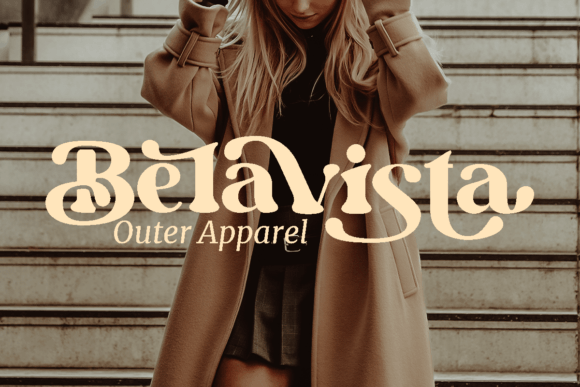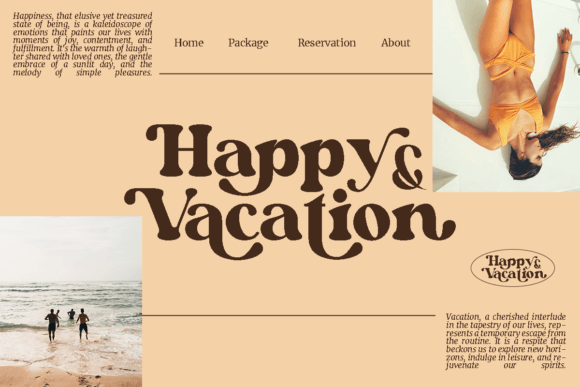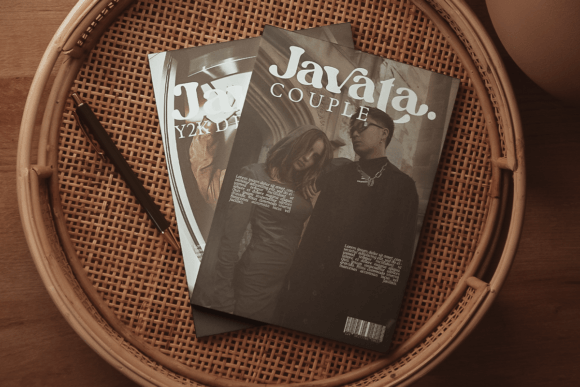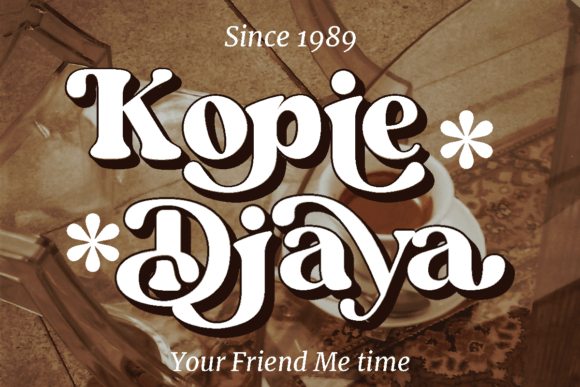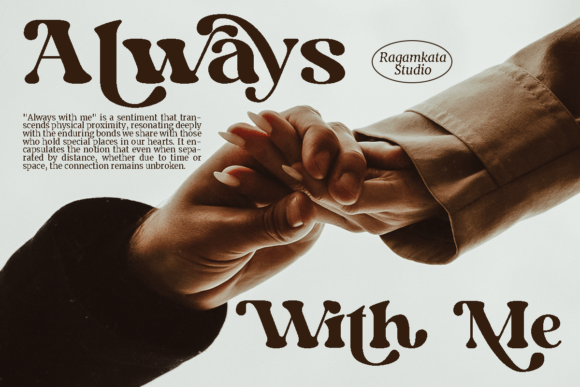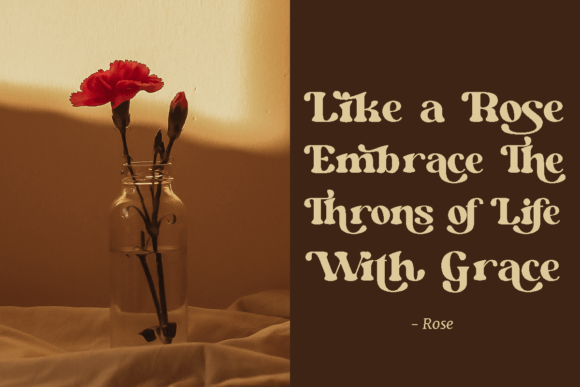
Introducing Dianda Font: A Stylish Retro-Bold Typeface for Creative Projects
Are you a designer or crafter looking for a unique and versatile font to elevate your creative projects? Look no further than Dianda Font, a stylish and bold typeface that seamlessly blends retro charm with modern flair. In this article, we’ll dive into the features and benefits of Dianda Font, and explore how it can be used to take your logos, magazines, social media, and more to the next level.
What is Dianda Font?
Dianda Font is a carefully crafted typeface that boasts a distinctive retro aesthetic with a bold and eye-catching twist. Its unique character set includes both lowercase and uppercase letters, numbers, punctuation, and multilingual letters, making it an excellent choice for a wide range of creative applications. Whether you’re designing a logo, creating a magazine layout, or crafting social media graphics, Dianda Font is sure to make a statement.
Key Features of Dianda Font
- Unique Character Set: Dianda Font features a comprehensive character set, including lowercase and uppercase letters, numbers, punctuation, and multilingual letters.
- Alternates and Ligatures: Dianda Font comes with a range of alternates and ligatures, giving you the flexibility to create unique and visually appealing text arrangements.
- Retro-Bold Style: With its bold and retro-inspired design, Dianda Font is perfect for creating eye-catching logos, magazine headers, and social media graphics.
Benefits of Using Dianda Font
So why choose Dianda Font for your creative projects? Here are just a few benefits of using this versatile typeface:
- Instant Recognition: The bold and retro style of Dianda Font ensures that your text will grab attention and leave a lasting impression.
- Flexibility: With its comprehensive character set and range of alternates and ligatures, Dianda Font can be used in a wide range of creative applications.
How to Use Dianda Font in Your Creative Projects
Ready to get started with Dianda Font? Here are a few ideas for incorporating this stylish typeface into your creative projects:
- Logo Design: Use Dianda Font to create a bold and eye-catching logo that showcases your brand’s personality.
- Magazine Layouts: Add a touch of retro flair to your magazine layouts with Dianda Font, perfect for headers, titles, and pull quotes.
- Social Media Graphics: Create engaging social media graphics with Dianda Font, from Facebook posts to Instagram stories and more.